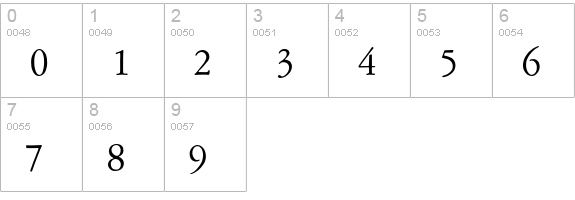
Garamont AMSTERDAM Expert Regular SC Font Details
Garamont AMSTERDAM Expert Regular SC is the standard, neutral variant in the Garamont typeface family \xE2\x80\x94 well suited to general body text, paragraphs, and standard typographic work.
The Garamont AMSTERDAM Expert Regular SC font exudes elegance and sophistication with its refined design and classic aesthetic. This timeless serif font is perfect for conveying a sense of professionalism and authority in various design projects, from branding to editorial layouts. What sets Garamont AMSTERDAM Expert Regular SC font apart is its versatility and readability, making it an ideal choice for both print and digital applications. The clean lines and balanced proportions of this font ensure clarity and legibility, even at smaller sizes. Best of all, Garamont AMSTERDAM Expert Regular SC font is available for free download at FontsMarket.com, making it easily accessible for designers and creatives looking to elevate their work with a touch of timeless sophistication. Don't miss out on the opportunity to enhance your projects with this exquisite font that combines tradition with modernity seamlessly.